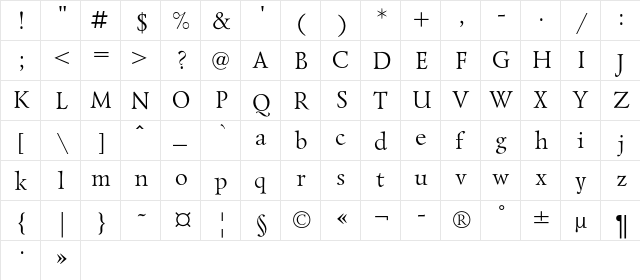
LazurskiExpOdC Regular Font Preview
LazurskiExpOdC Regular
Design Context for LazurskiExpOdC Typeface
LazurskiExpOdC offers clean, dependable letterforms without strong stylistic allegiance, making it a practical choice for designers who need flexibility.